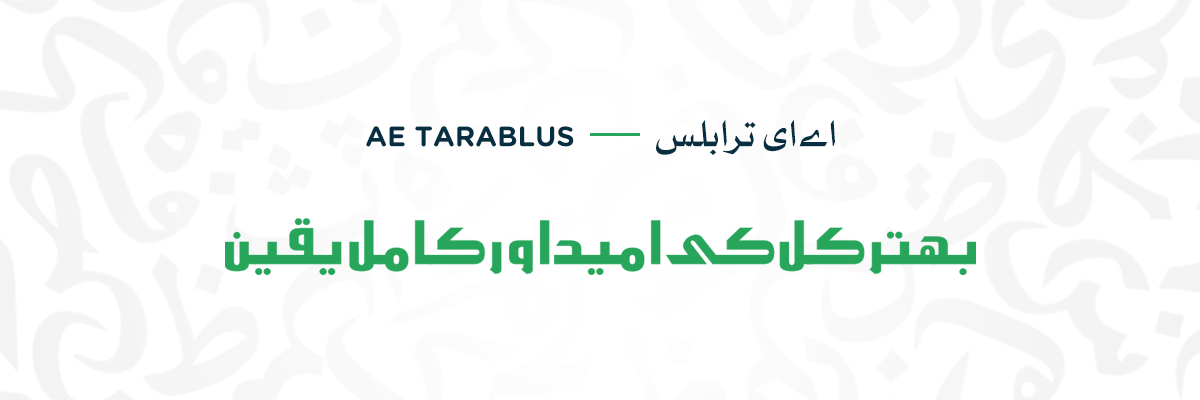
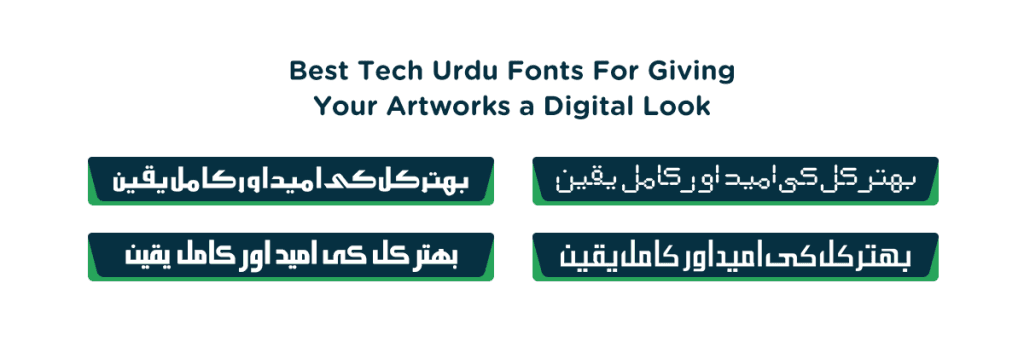
At present, when the world has become highly digital, using the tech Urdu fonts in your artwork will give it an elegant and sophisticated look. Numerous tech fonts are available today to transform your work from ordinary to extraordinary. These fonts are straight and well-aligned with very subtle rounded corners. Not all, but the majority of the Kufic fonts are tech or digital fonts. However, due to the variety of font categories, some people might need help finding which Urdu fonts fall under the tech category and give a modern look to your Urdu text. If you are among those people, there is nothing to worry. We have got you covered and this guide is a must-read for you. In this article, we will discuss some of the fantastic tech fonts that will enhance the overall appearance of your text and increase its readability even at lower resolutions.
Looking at the wide range of typefaces, you might become confused at first glance. However, while searching for tech fonts, the first and foremost thing is to see well-aligned fonts, some of which are thick and black. Here are some of the best tech Urdu fonts to make your artwork elegant and modern:
| Sr. No | Font Name | Font Designer |
|---|---|---|
| 1 | Aref Lamsa | Abdoulla Aref |
| 2 | Ae Tarablus | Fazlur Rahman Quraishi |
| 3 | Ae Sharjah | Fazlur Rahman Quraishi |
| 4 | Pashtu Breshnik | Abdur Rauf Mahsood |
| 5 | Unikurd Reyhan | Bardaqani, Azad, and Ardawan |
| 6 | AlFars 13 Elm Border | Syed Irtiza Hassan Rizvi |
| 7 | Sarem Muskan | Sarem Muskan |
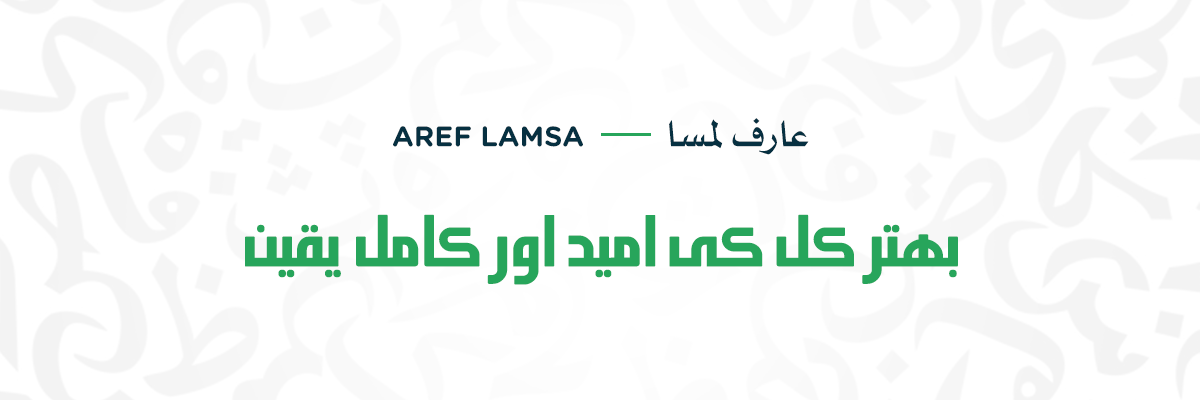
The designer of Aref Lamsa was Abdoulla Aref. Inspired by Kufic calligraphy, it is a bold, thick font with well-aligned letterforms. Every character has equal spacing, giving it a very elegant and modern look. Due to its sophisticated design, it can support Urdu, Arabic, Latin, and Persian languages. All the letterforms are filled with subtle rounded corners. The overall font is designed to allow you to read it even at smaller sizes.
Ae Tarablus was designed by Fazlur Rahman Quraishi and launched on 9 October 2017. It is a bold, thick font with slightly rounded corners. The font was inspired by the Kufic calligraphy technique. The distance between the letterforms is constant, which means they are monospaced. With 456 glyphs and 476 characters, it can support Latin, Greek, Arabic, etc. languages. Due to its smooth and perfectly aligned design provides a modern look to your artwork, for example, tech designs, logos, titles, etc.
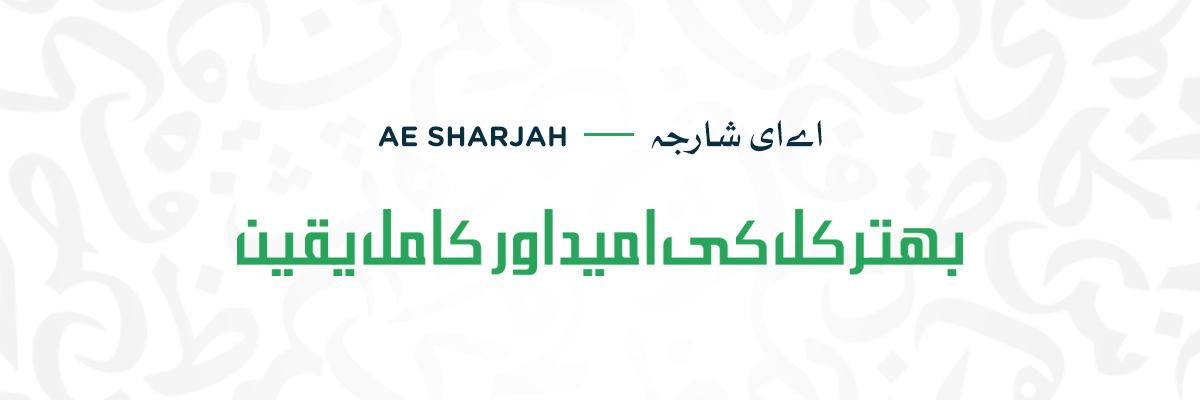
The well-known Fazlur Rahman Quraishi designed Ae Sharjah. It is a geometric Arabic font with an elegant overall appearance. Inspired by Kufic Script, the font was launched in 2017 under the trademark of Arab Eyes. The letterforms are arranged in a proper symmetry, giving it a very clean and professional look. Mostly, it has sharp edges, but subtle curved corners are also present. The letterforms are mono-spaced, increasing its aesthetic appearance and making it best to write your Urdu text’s headings and short bursts. The font comprises 476 letters, unique signs, and 456 glyphs to support various languages easily.
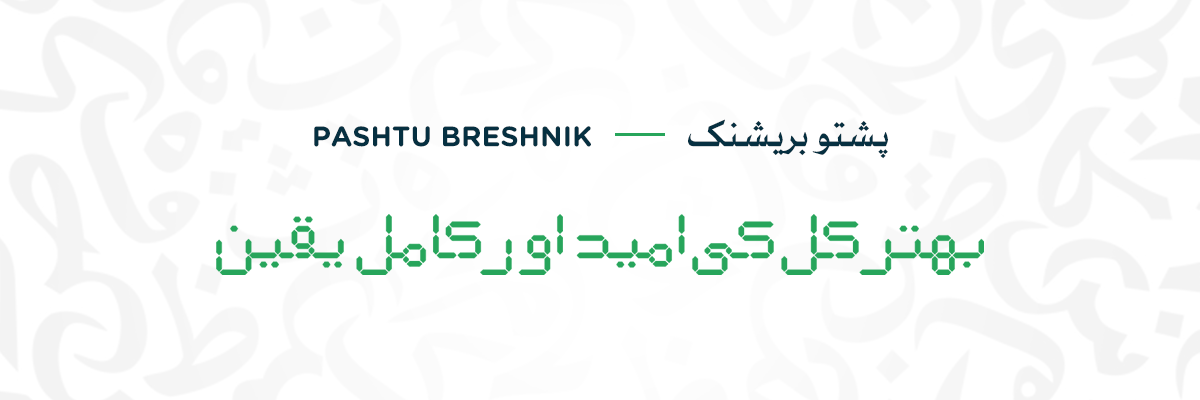
The designer of Pashtu Breshnik is Abdur Rauf Mahsood. It was launched on 25 May 2011. Having a very geometric appearance, it is a bold and tech font. The overall appearance of this font looks similar to letters in calculators and digital clocks. It can also be referred to as LED font due to its block-like appearance. Having 591 glyphs and 561 characters, it features minorly rounded corners. Furthermore, the blocks in its letterforms are of different sizes. Pashtu Breshnik is the best choice to give your artwork a sophisticated and modern look.
Unikurd Reyhan was launched on 26 October, 2012. It was designed by famous designers Bardaqani, Azad, and Ardawan under the Kurd IT Group. With sharp edges and subtly curved corners, it is a bold font. Inspired by the Square Kufic calligraphy technique, the letters are well-aligned and arranged in proper symmetry, giving a clear and modern look. This font’s letterforms are thick, making it best to write headings and titles in your design projects. Having 339 glyphs and 358 characters, it can support various languages like Latin, Urdu, Arabic, and Kurdish.
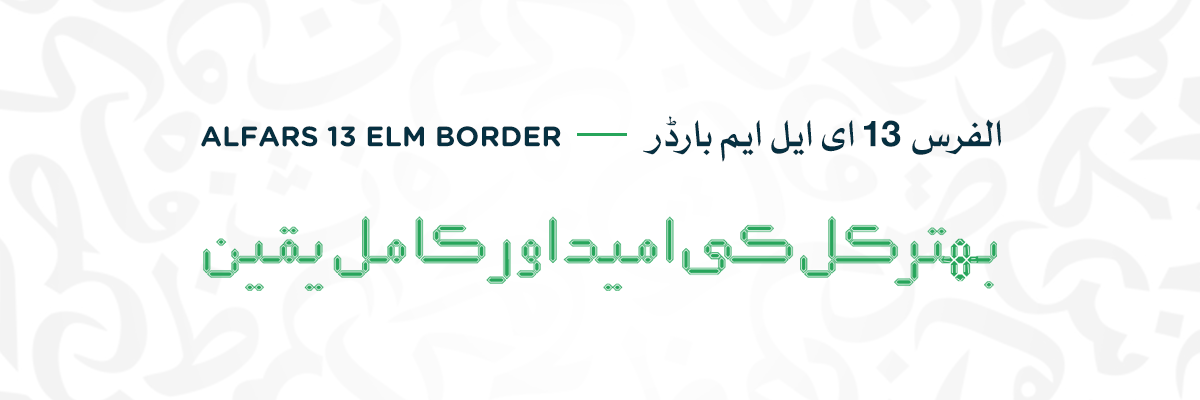
AlFars 13 Elm Border was launched on 30 January 2016. The designer of this font is Syed Irtiza Hassan Rizvi. With 334 glyphs and 219 characters, it is also a tech font with bold and thin letterforms. The distance between the letterforms varies and is undynamic. The block-style appearance of the characters makes it a good option for creating digital projects and designs. With slightly curved edges, it adds a unique touch to your artwork. Furthermore, it can support Greek, Persian, Arabic, Urdu, and much more languages.
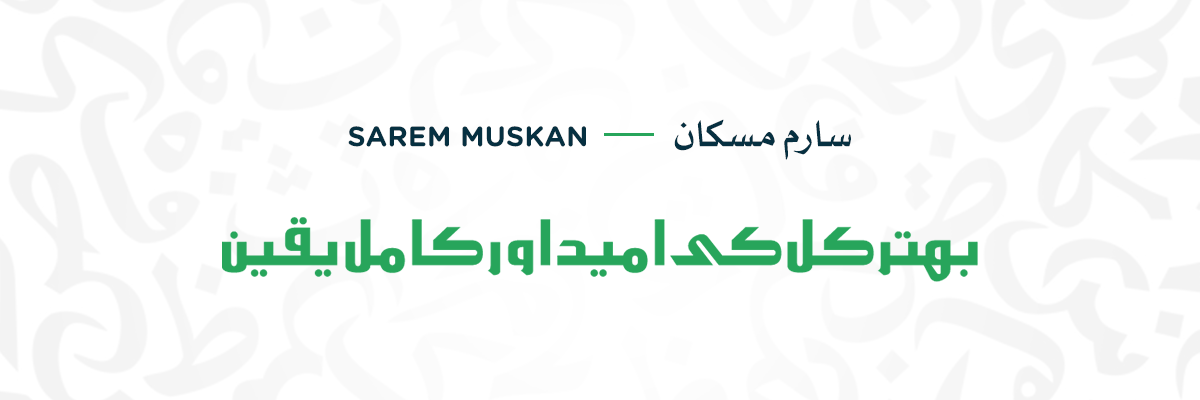
A Sindhi font, Sarem Muskan, was designed and released by Sanaullah Mangnejo Sarem. This bold font is a trademark of Ayesha Graphics. The letterforms of this typeface are filled and are equally-spaced (mono-spaced). Having pointed edges and wide letterforms, it offers maximum readability even at smaller resolutions. Inspired by Naskh calligraphy technique, it has constant thickness throughout. Sarem Muskan is a good choice for short bursts of texts in your designing projects rather than long Urdu texts. Some of the applications of this font include tech branding, book covers, headings, titles, etc.
When it comes to finding the best tech Urdu fonts for your artworks, it becomes difficult to select due to a wide variety of fonts available today. Above, we have covered some of the amazing tech fonts that not just improves the overall appearance of your designing projects but also give it a digital look. Most of the tech fonts are inspired by Kufic calligraphy techniques, which means they are well-aligned, and the letters are arranged in a symmetrical order. I hope this guide helps you in choosing the right tech fonts for your designing projects.